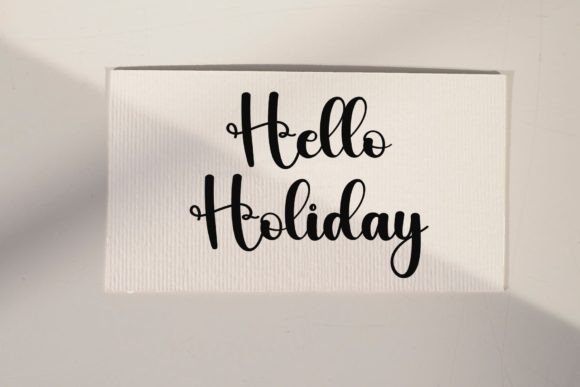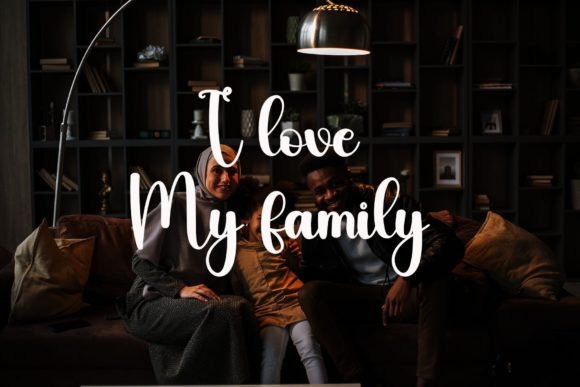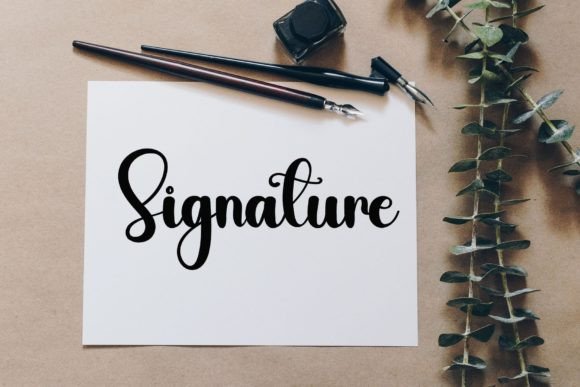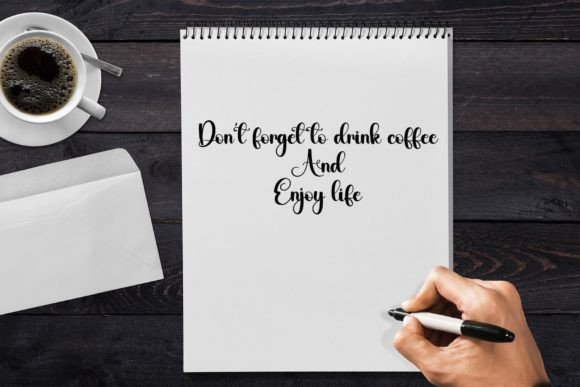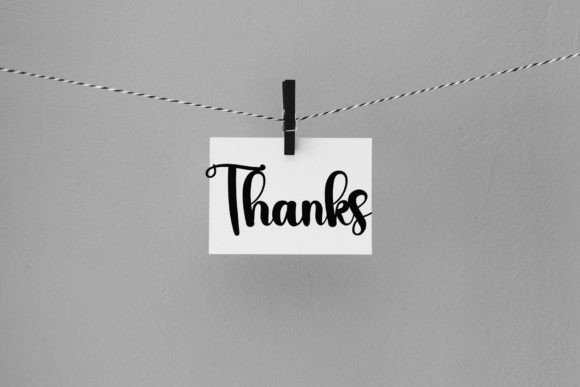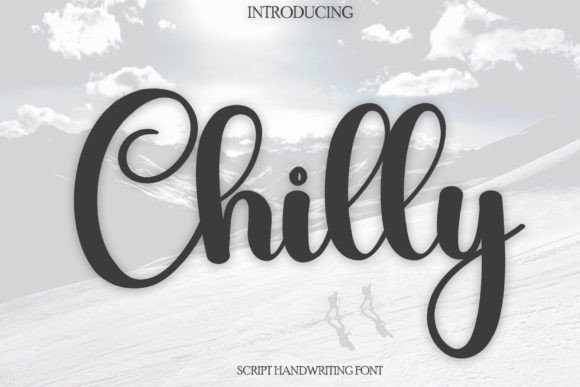
Introducing Chilly Font: The Fun and Friendly Handwritten Font to Elevate Your Designs
Are you tired of using the same old fonts in your designs? Do you want to add a touch of personality and whimsy to your creations? Look no further than Chilly Font, a fun and friendly handwritten font that’s sure to make your designs stand out. In this article, we’ll dive into the unique charm of Chilly Font and explore how you can use it to take your designs to the next level.
What is Chilly Font?
Chilly Font is a carefully crafted handwritten font that’s designed to bring a smile to your face. With its playful and approachable vibe, it’s perfect for designers and crafters who want to add a personal touch to their work. Whether you’re creating a logo, a poster, or a social media graphic, Chilly Font is the perfect choice for anyone who wants to make a statement.
The Unique Charm of Chilly Font
So, what sets Chilly Font apart from other fonts out there? For starters, its handwritten feel gives it a distinctly personal and relatable quality. The letters are carefully crafted to resemble the imperfect, yet charming, curves and flourishes of handwriting. This makes Chilly Font feel approachable, friendly, and even a little bit quirky.
Another key feature of Chilly Font is its versatility. Whether you’re using it for a bold headline or a more subtle body of text, it adapts beautifully to different contexts and design styles. Plus, its clean and legible lines make it easy to read, even at smaller sizes.
How to Use Chilly Font in Your Designs
Now that we’ve explored the unique charm of Chilly Font, let’s talk about how you can use it in your designs. Here are a few ideas to get you started:
- Logos and branding: Use Chilly Font to create a memorable and eye-catching logo that reflects your brand’s personality.
- Posters and flyers: Add a pop of personality to your posters and flyers with Chilly Font’s playful and attention-grabbing style.
- Social media graphics: Use Chilly Font to create engaging and shareable social media graphics that stand out in crowded feeds.
- Invitations and cards: Add a touch of whimsy and charm to your invitations and cards with Chilly Font’s handwritten feel.
Tips for Getting the Most Out of Chilly Font
To really make Chilly Font shine in your designs, here are a few tips to keep in mind:
- Experiment with colors: Chilly Font looks great in a range of colors, so don’t be afraid to try out different hues and combinations.
- Play with textures: Add an extra layer of depth and interest to your designs by pairing Chilly Font with different textures and patterns.
- Mix and match: Combine Chilly Font with other fonts and design elements to create a unique and eye-catching look.
| Font Name | Chilly Font |
| Author | Harlek studio |
In conclusion, Chilly Font is a fun and friendly handwritten font that’s perfect for designers and crafters who want to add a touch of personality to their work. With its unique charm, versatility, and playful vibe, it’s the perfect choice for anyone who wants to create designs that stand out from the crowd. So why not give Chilly Font a try and see how it can elevate your designs?
Whether you’re a seasoned designer or just starting out, Chilly Font is a great addition to your font library. So go ahead, get creative, and have fun with Chilly Font!